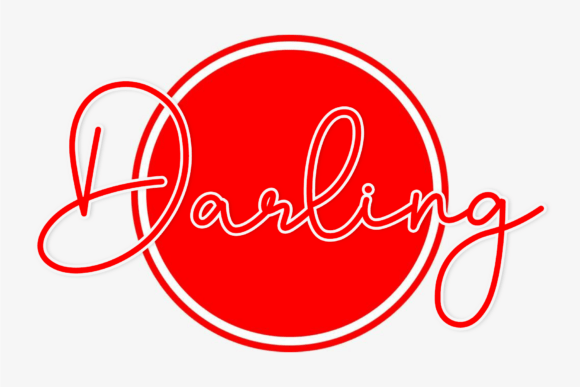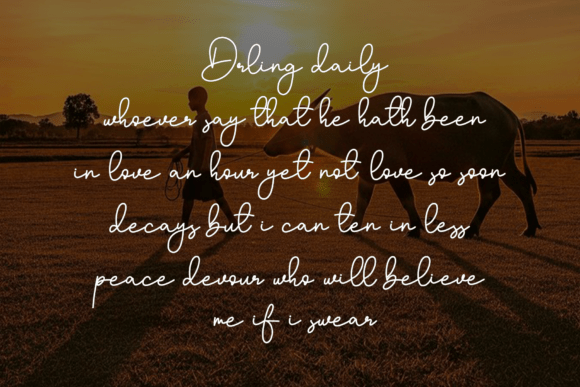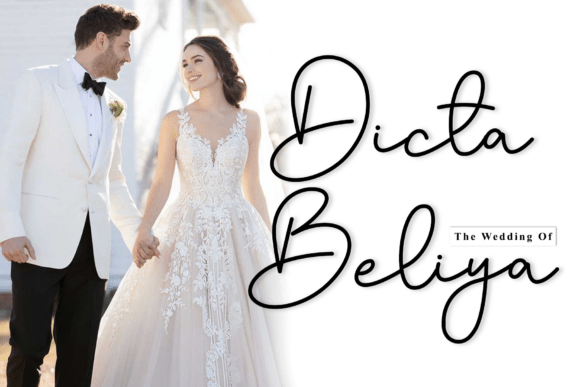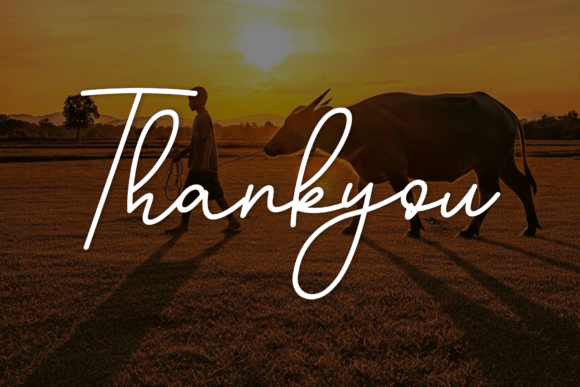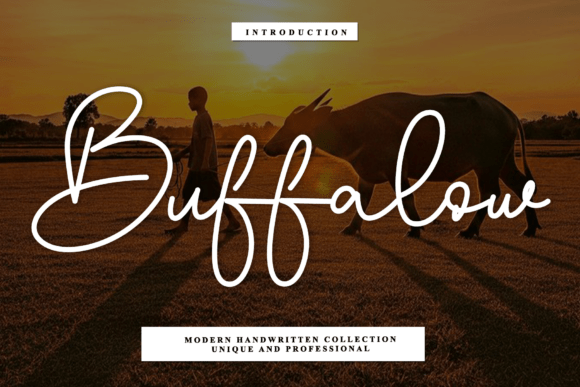
Introducing Buffalow Font: A Timeless Handwritten Masterpiece
Are you a designer or crafter looking for a font that can add a touch of elegance and sophistication to your designs? Look no further than Buffalow Font, a lovely and timeless handwritten font that is sure to make your designs come alive. In this article, we’ll take a closer look at Buffalow Font, its features, and how it can be used to create eye-catching logos, branding, and quotes.
What is Buffalow Font?
Buffalow Font is a beautiful handwritten font that is perfect for designers and crafters who want to add a personal touch to their designs. Every letter in Buffalow Font has a unique and beautiful touch, which sets it apart from other fonts. The font is designed to be versatile and can be used for a variety of design projects, from logos and branding to quotes and social media graphics.
Features of Buffalow Font
So, what makes Buffalow Font so special? Here are some of its key features:
- Unique and Beautiful Touch: Every letter in Buffalow Font has a unique and beautiful touch, which makes it perfect for designs that require a personal touch.
- Timeless Design: Buffalow Font has a timeless design that will never go out of style. Its classic look and feel make it perfect for designs that require a touch of elegance and sophistication.
- Versatile: Buffalow Font is versatile and can be used for a variety of design projects, from logos and branding to quotes and social media graphics.
- Handwritten: Buffalow Font is a handwritten font, which gives it a personal and authentic touch.
Benefits of Using Buffalow Font
So, why should you use Buffalow Font for your designs? Here are some of its benefits:
- Elegance and Sophistication: Buffalow Font adds a touch of elegance and sophistication to your designs.
- Personal Touch: Buffalow Font gives your designs a personal and authentic touch.
- Versatility: Buffalow Font is versatile and can be used for a variety of design projects.
- Easy to Use: Buffalow Font is easy to use and can be incorporated into your designs in a few simple steps.
Design Ideas Using Buffalow Font
Here are some design ideas to get you started with Buffalow Font:
- Logos and Branding: Use Buffalow Font to create eye-catching logos and branding for your business or personal project.
- Quotes and Social Media Graphics: Use Buffalow Font to create inspiring quotes and social media graphics.
- Wedding and Event Stationery: Use Buffalow Font to create beautiful wedding and event stationery, such as invitations and thank-you cards.
- Packaging and Product Design: Use Buffalow Font to create unique and eye-catching packaging and product designs.
In conclusion, Buffalow Font is a lovely and timeless handwritten font that is perfect for designers and crafters who want to add a touch of elegance and sophistication to their designs. Its unique and beautiful touch, timeless design, and versatility make it a great choice for a variety of design projects. Whether you’re creating logos and branding, quotes and social media graphics, or wedding and event stationery, Buffalow Font is sure to make your designs come alive!